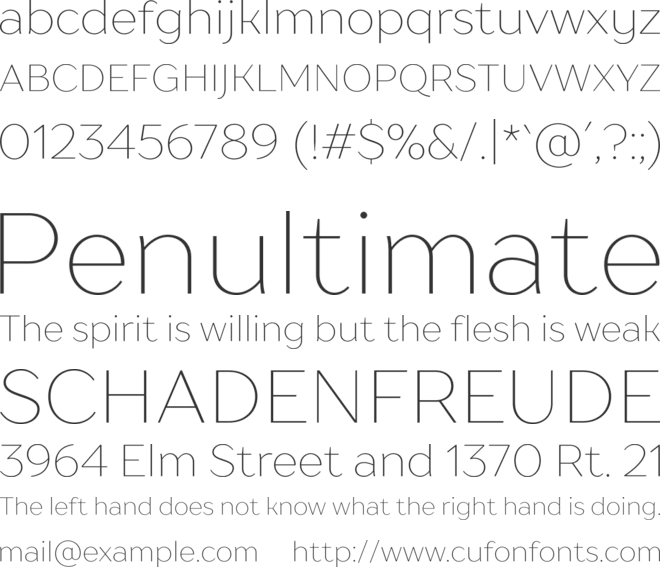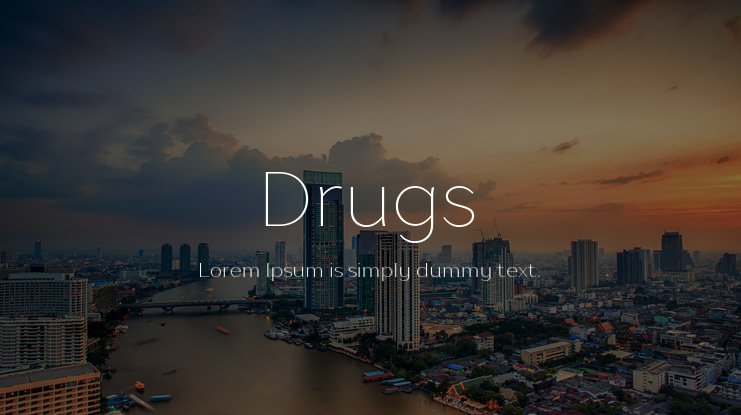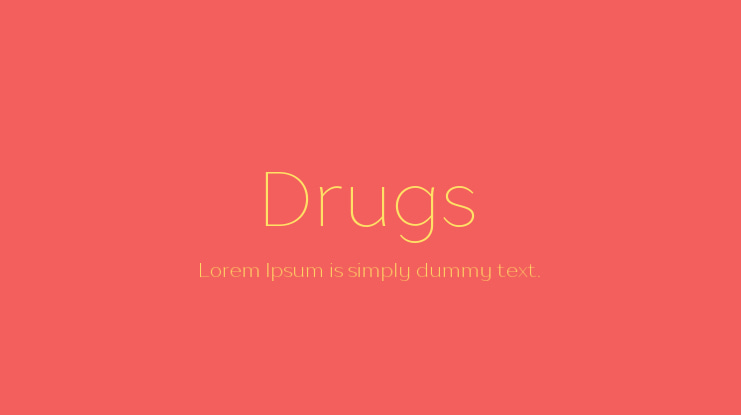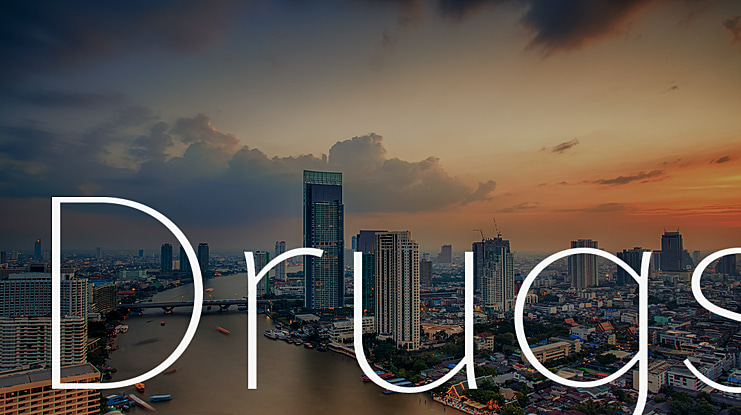
Drugs Font
TT Drugs is a font family that we created specially for the pharmaceutical industry. Toothpastes, pharmaceuticals and a variety of packaging household chemicals - organic place of this font. The full family with 10 styles is available at MyFonts.